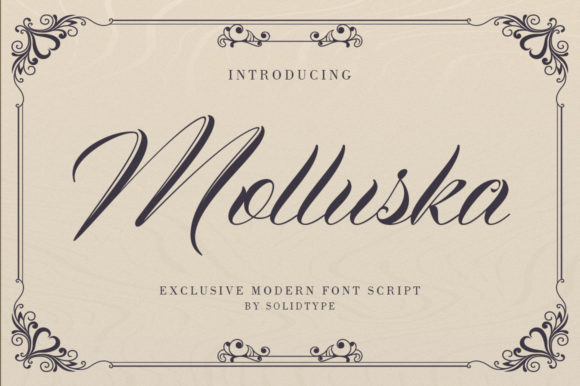
Introducing Molluska Font, your gateway to captivating designs! This exquisite script font invites you on a journey of elegance and creativity. With its versatile style, prepare to craft designs that leave an indelible mark.
Unlock the power of PUA encoding and unleash the full potential of Molluska Font. Access a trove of glyphs and swashes effortlessly, empowering you to add intricate details and a touch of whimsy to your projects.
Molluska Font's delicate strokes and graceful curves evoke a sense of artistry that will enchant your audience. Its enchanting presence will transform plain text into captivating masterpieces, making it the ultimate choice for projects that demand a sophisticated touch.
Whether you're crafting wedding invitations, designing logos, or creating eye-catching social media posts, Molluska Font is your perfect companion. Its versatile nature empowers you to explore a world of creative possibilities, transforming your designs into exquisite works of art.
Embrace the beauty of Molluska Font today and experience the joy of creating designs that will captivate hearts and inspire imaginations!